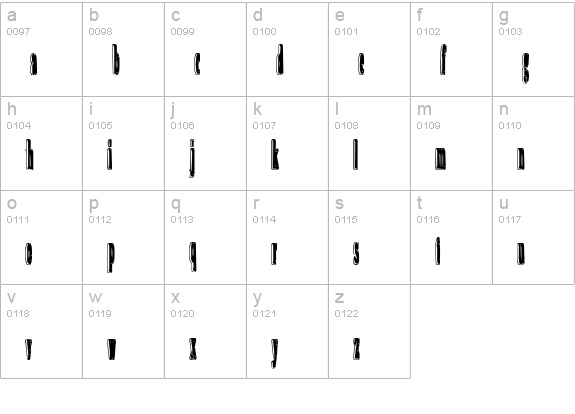
An irritating speck Font Details
Introducing the An irritating speck font - a quirky and playful typeface that will add a touch of whimsy to your design projects. This font features irregular and eccentric characters that are sure to catch the eye and spark curiosity. Despite its name, An irritating speck font is anything but annoying - it's a fun and unique choice for a variety of creative applications. Best of all, this font is available for free download at FontsMarket.com. Simply visit the website to access this delightful typeface and enhance your designs with its charming personality. Add a dose of creativity to your projects with the An irritating speck font today!